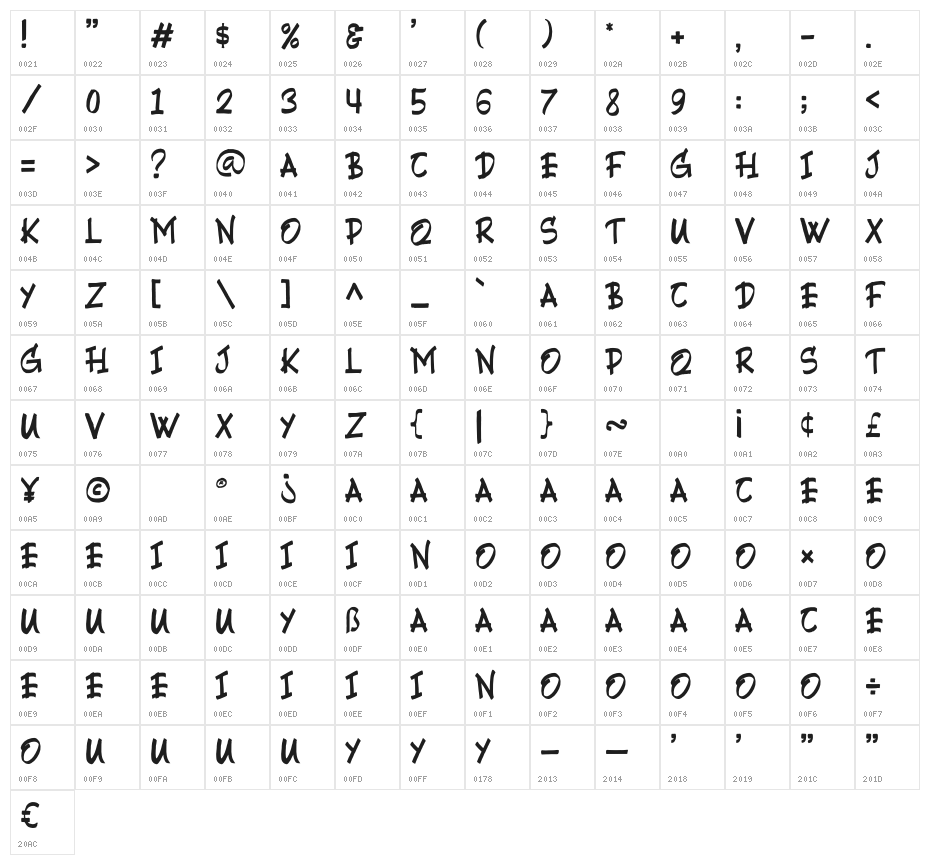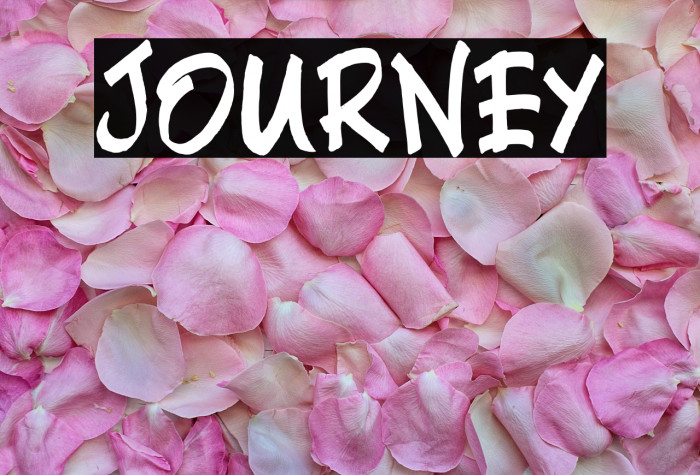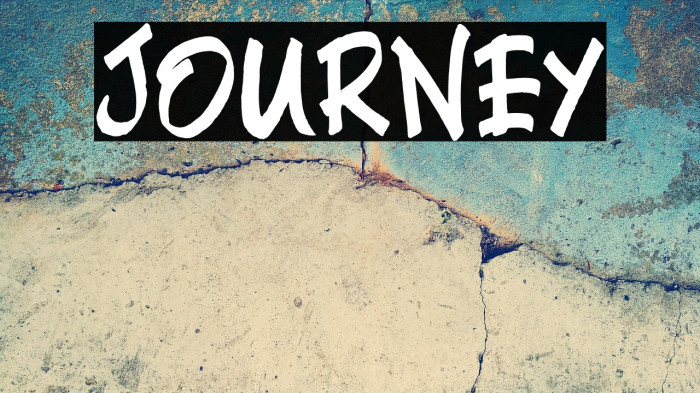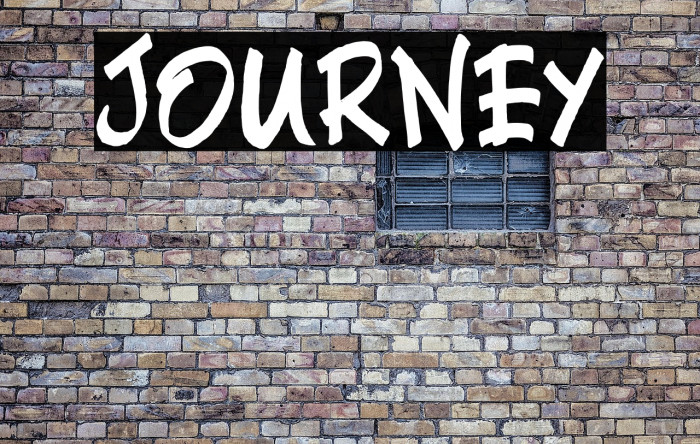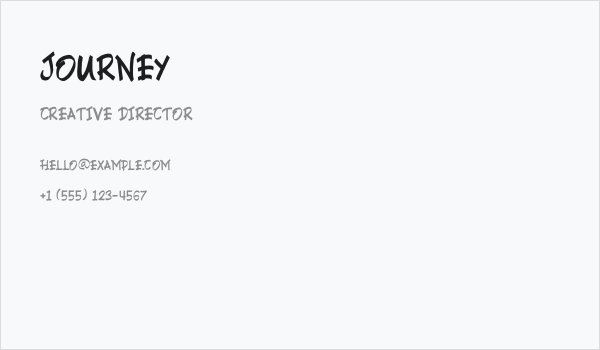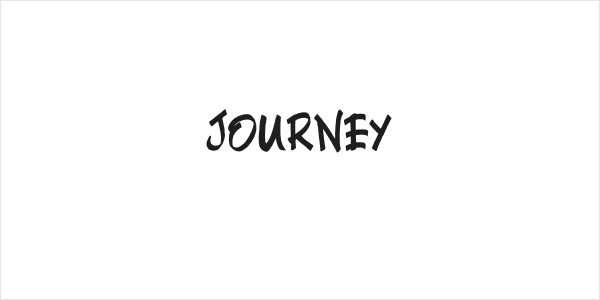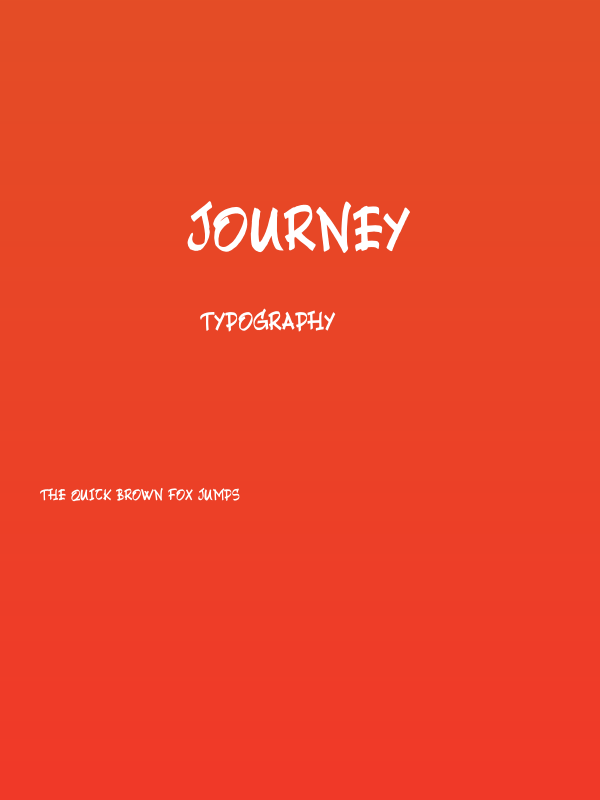
Journey Font
Journey Description
This font features a bold and dynamic style with a handwritten appearance. The characters are slightly slanted, giving them a sense of movement and energy. The strokes are thick and consistent, providing a strong visual impact. The uppercase and lowercase letters maintain a cohesive look, with rounded edges and a playful, informal vibe. The numerals and special characters are equally bold, ensuring readability and uniformity across all elements. This font is ideal for projects that require a personal touch or a casual, friendly tone.
Overall StyleCasual, Playful
Proposed ProjectsGreat for posters, greeting cards, logos, and any design needing a personal, informal touch.